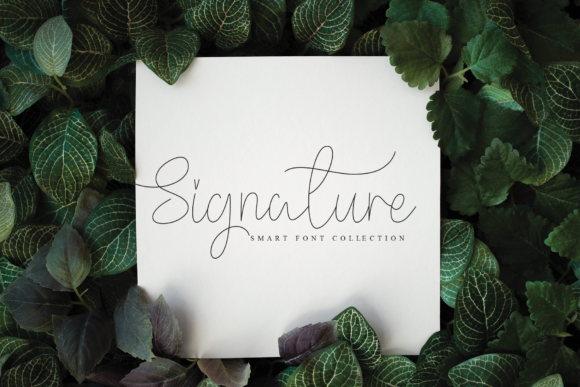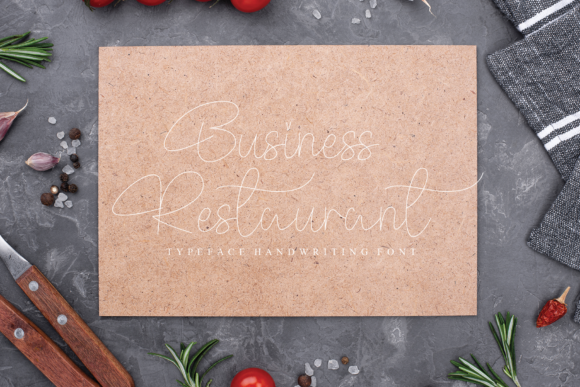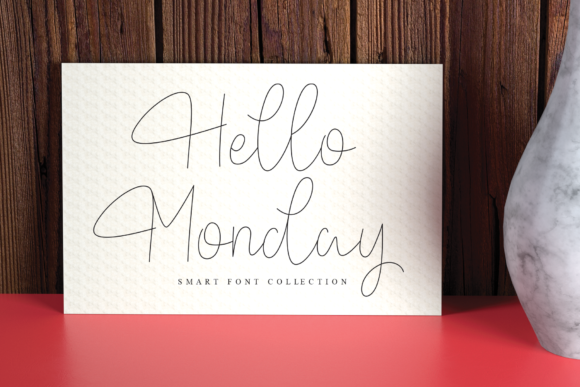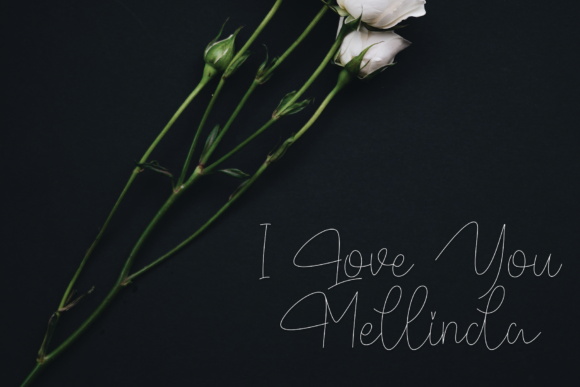
Baltimore Font
About Baltimore Font
Baltimore is a stylish and delicate script font. It has a clean, thin and smooth vibe and it will be a hit for any design that you want to add it to.